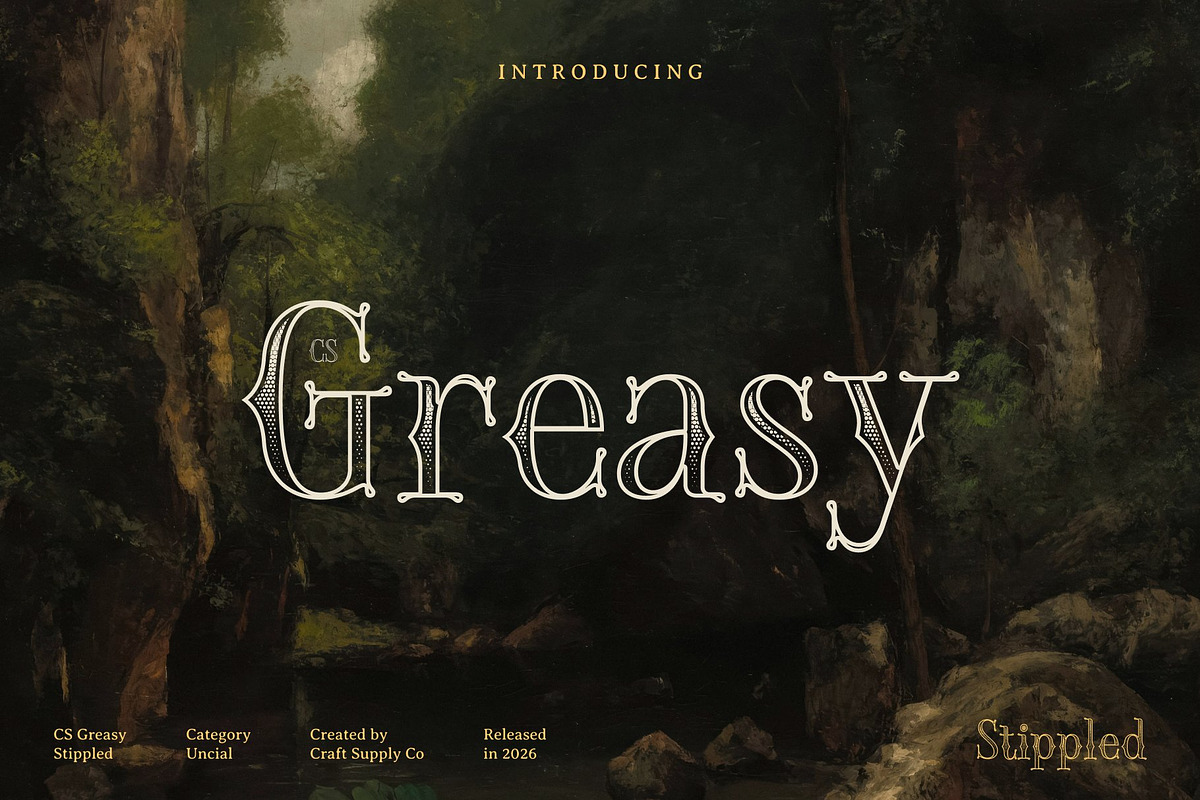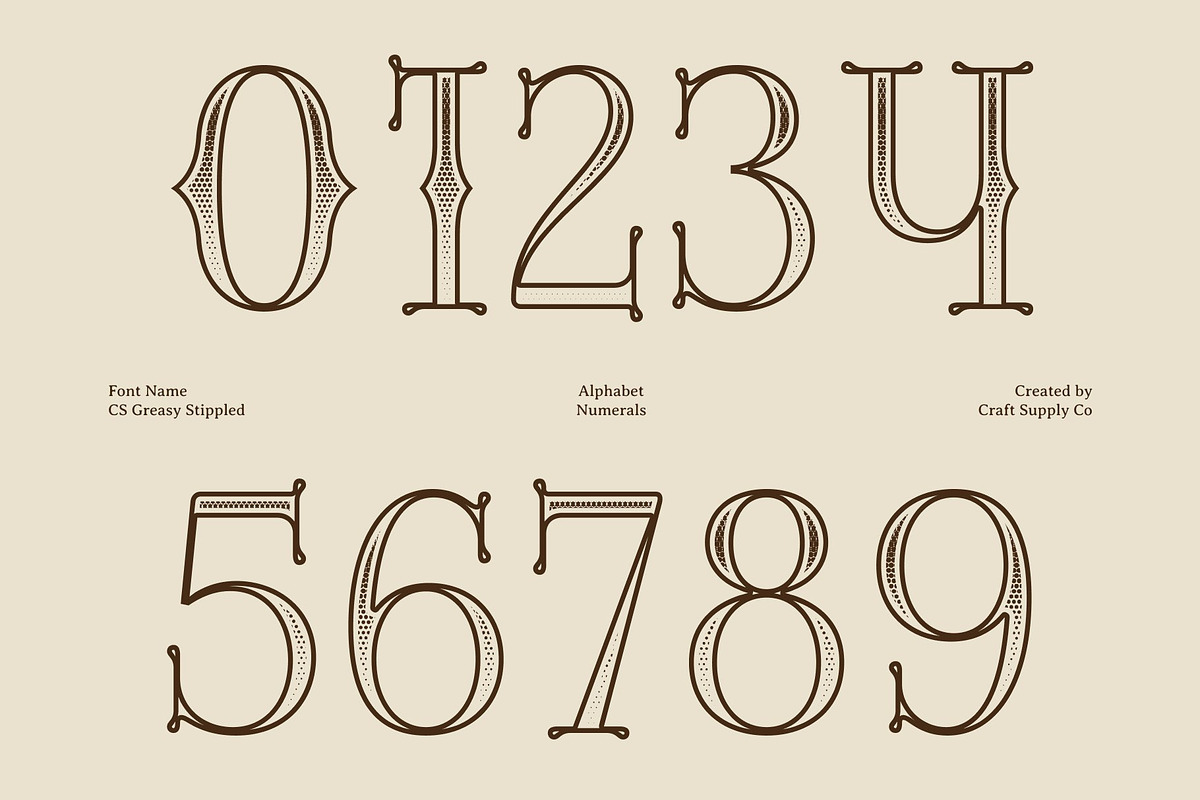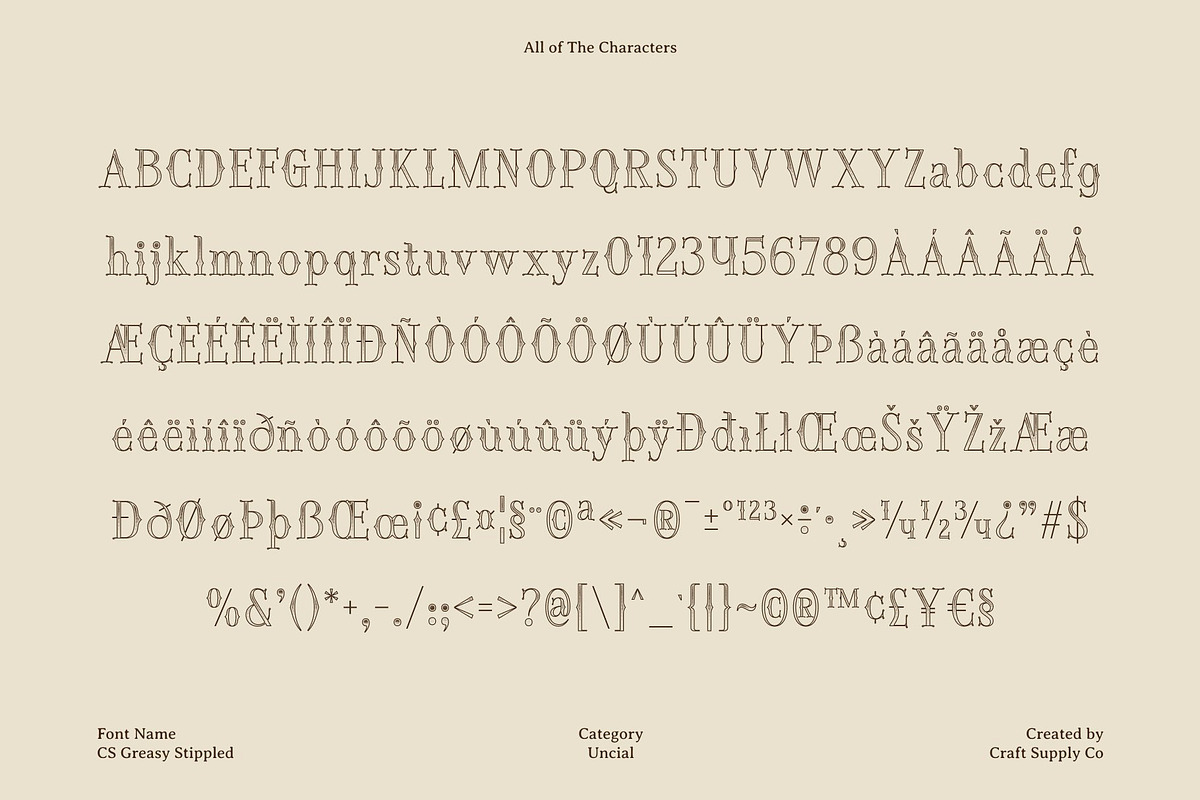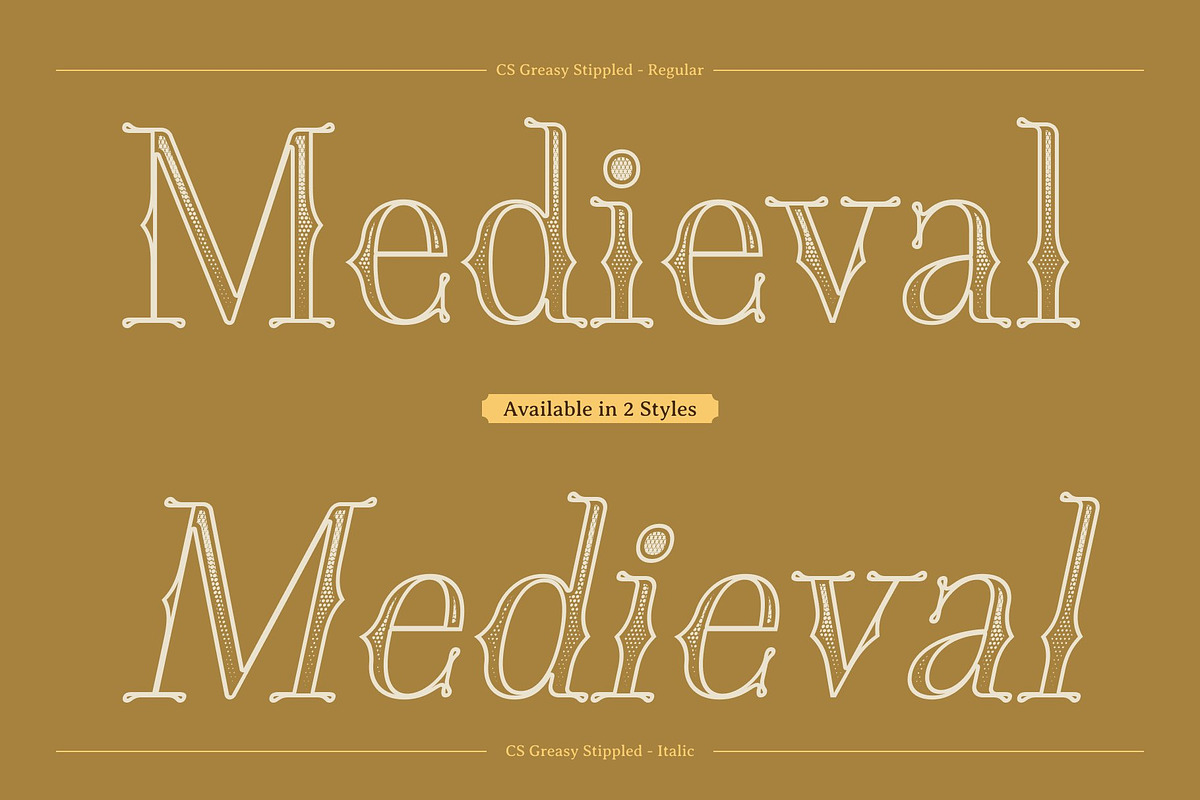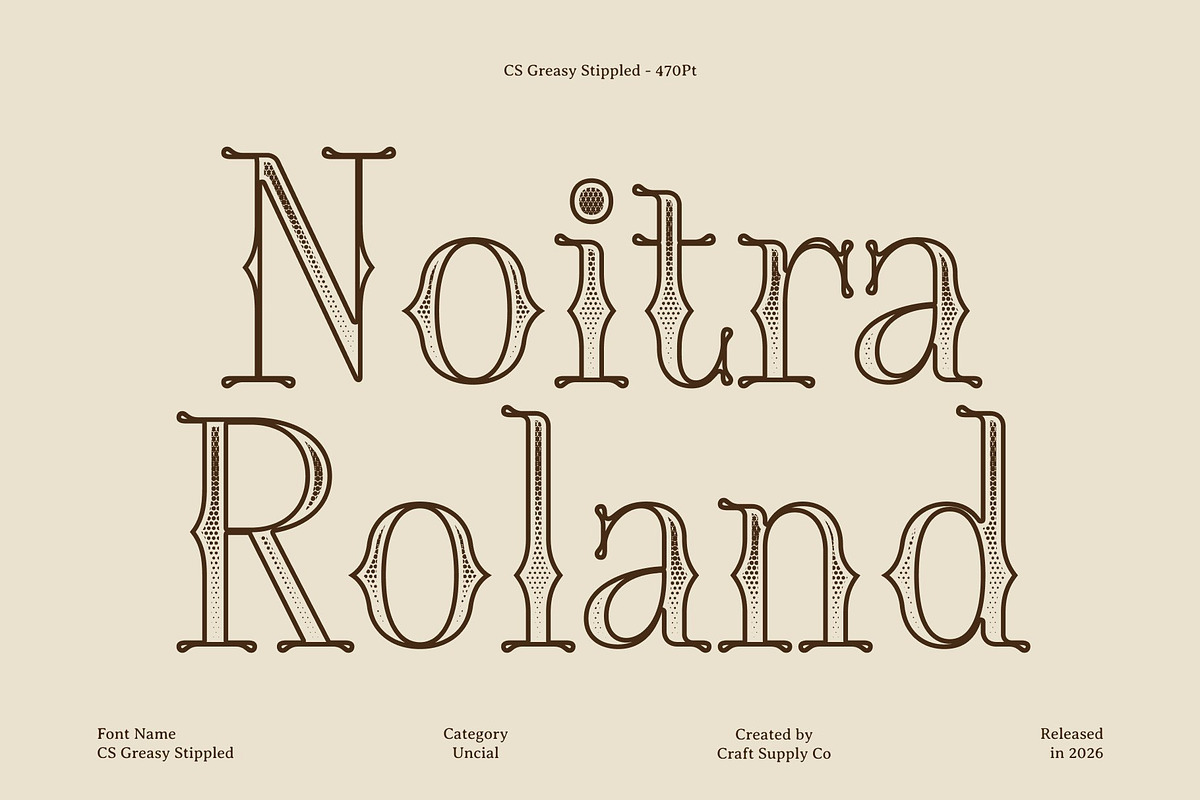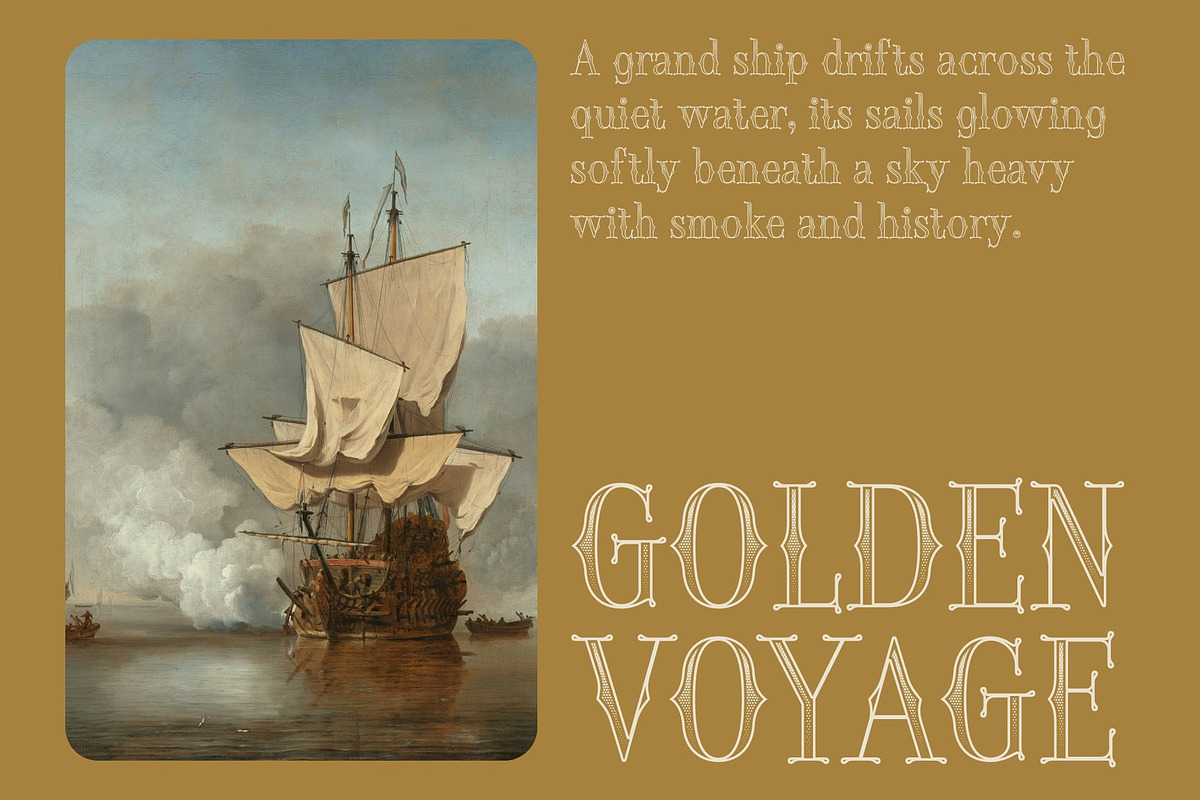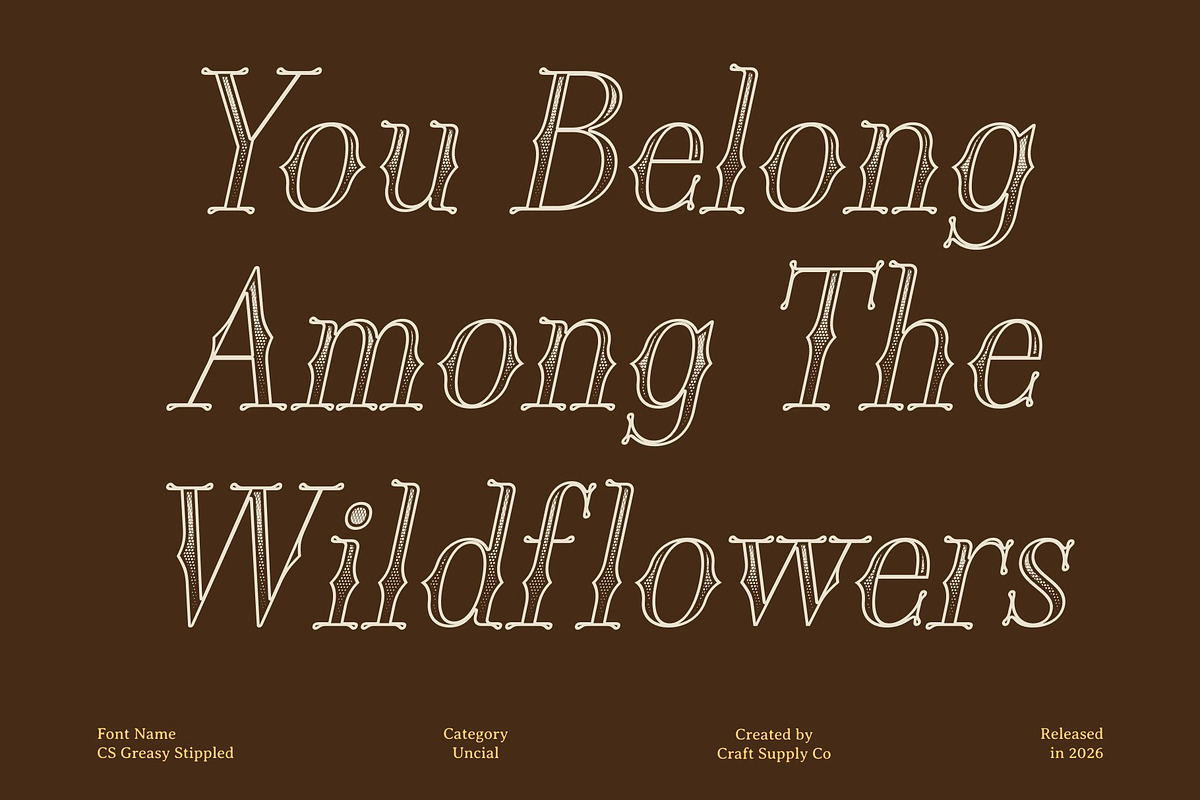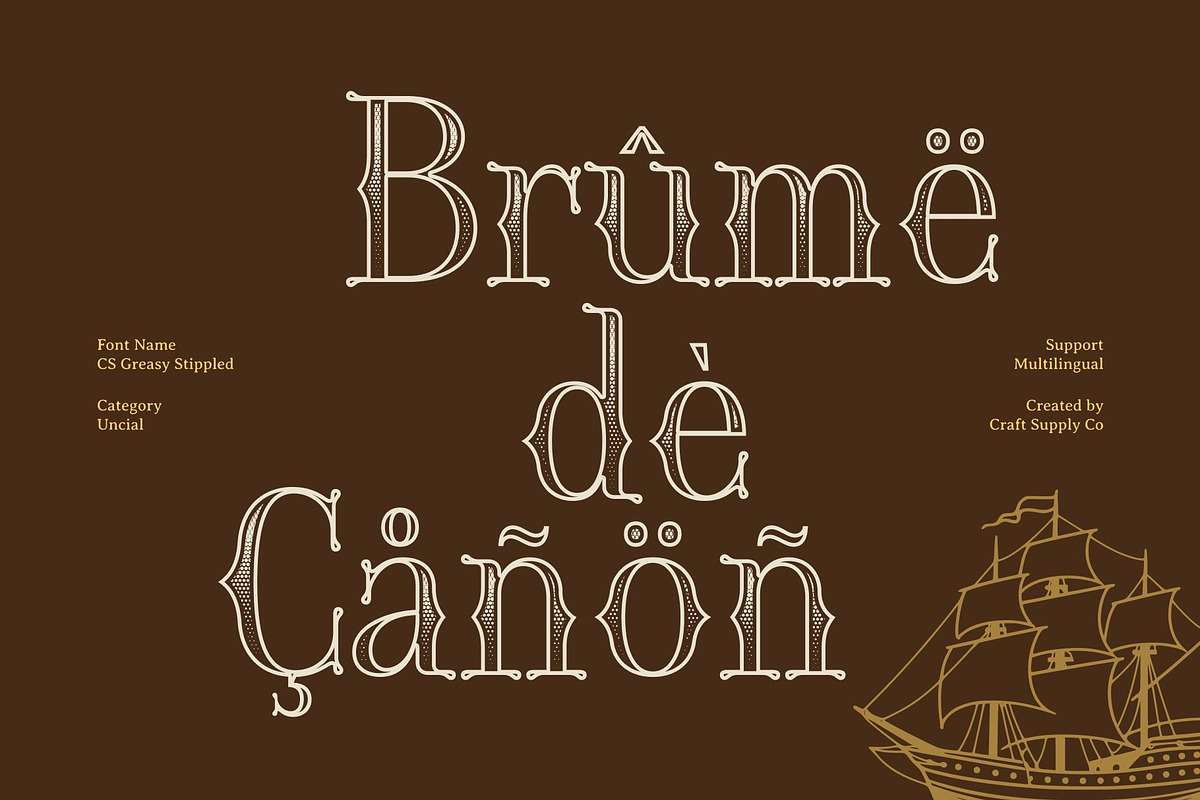
CS Greasy Stippled
CS Greasy Stippled – Uncial Font: Timeless Heritage with Textured Elegance
Classic Uncial Display Font with Stippled Texture This is a classic display serif font inspired by the timeless tradition of uncial script. Known for its smooth, rounded letterforms and flowing elegance, the font reflects the beauty of early medieval handwriting. The addition of a stippled texture introduces a subtle dotted surface across the characters, enhancing the design with a handcrafted, slightly aged appearance that enriches its historical charm.
Rounded Letterforms with Historic Character The graceful curves and balanced strokes of this font create a harmonious and expressive typographic style. These rounded forms echo the artistry of ancient manuscripts and traditional calligraphy, while the stippled detailing adds depth and visual texture that enhances the vintage atmosphere without compromising readability.
A Fusion of Medieval Heritage and Retro Appeal This font blends the authenticity of historic script with a touch of retro elegance. Its distinctive structure bridges antique typographic traditions with contemporary design sensibilities, creating a typeface that feels both timeless and creatively versatile.
Perfect for Fantasy and Classic Typography This font works beautifully in fantasy-themed designs, book covers, folklore-inspired artwork, and branding that celebrates historical aesthetics. Its artistic forms help create immersive visuals that evoke storytelling, mythology, and cultural heritage.
CS Greasy Stippled Regular
CS Greasy Stippled Italic